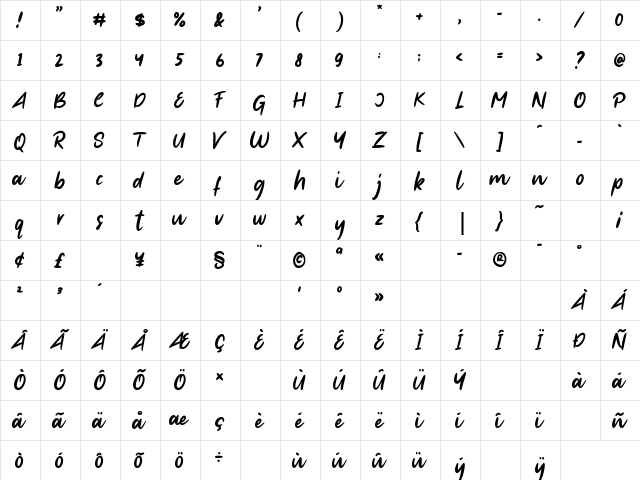
First Time Regular
| Foundry | Kong Font |
| Designer | Kong Font |
Design Context for First Time Typeface
First Time is a composed and adaptable typeface that performs quietly and consistently across a wide range of design contexts.